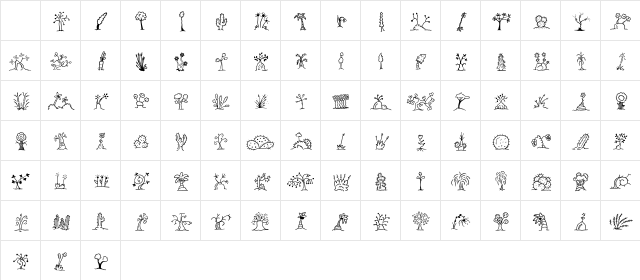
Complete MiniPics UprootedTwig glyph index. Displaying only characters natively supported by MiniPics UprootedTwig font.
MiniPics is a composed and adaptable typeface that performs quietly and consistently across a wide range of design contexts.